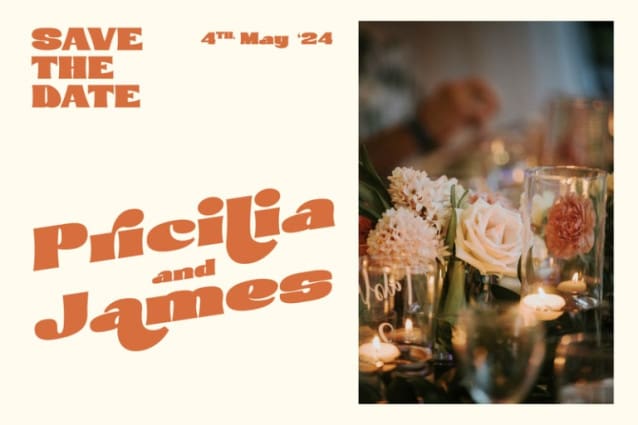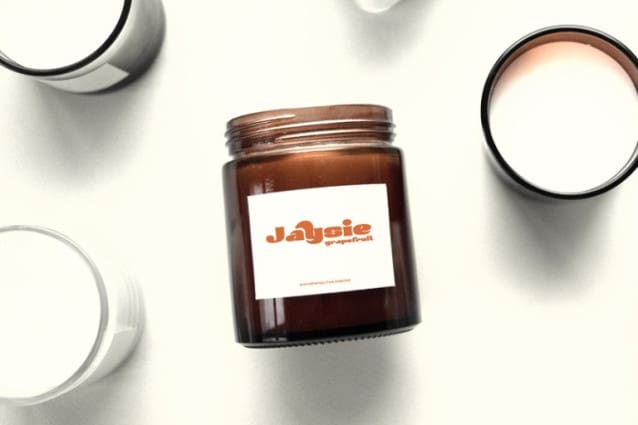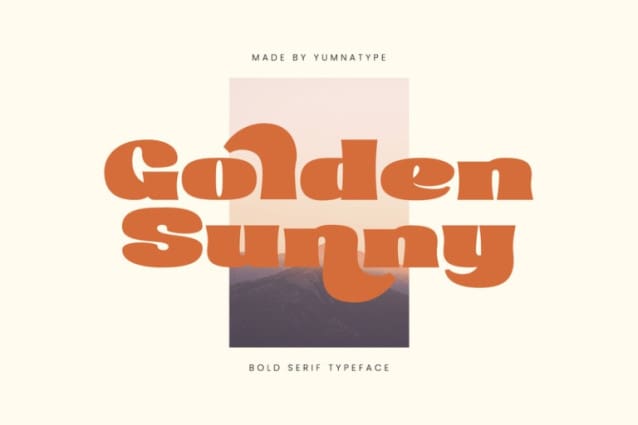
Golden Sunny Font
Golden Sunny Font, is a delightful serif font that radiates warmth and charm with its modern design and rounded letterforms. Crafted with a thick weight and a gentle curvature to its shapes, this font exudes a sense of friendliness and approachability.
The bold weight of Golden Sunny ensures that each letter makes a bold statement on the page, while the rounded shapes add a touch of softness and elegance to the overall aesthetic. This combination of boldness and warmth creates a harmonious balance that captivates the eye and invites readers to engage with the text.